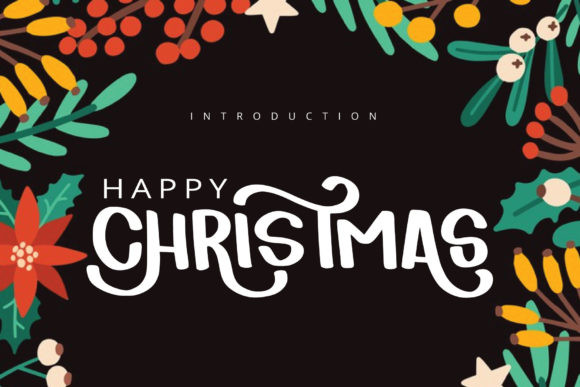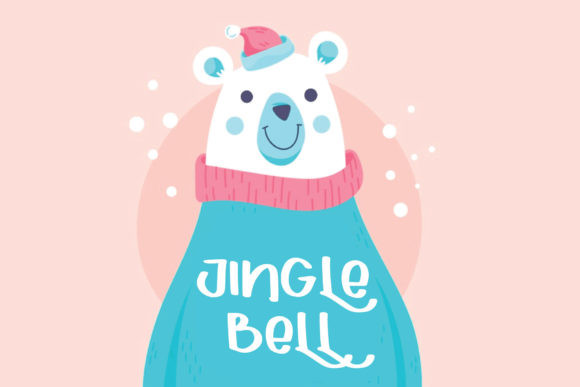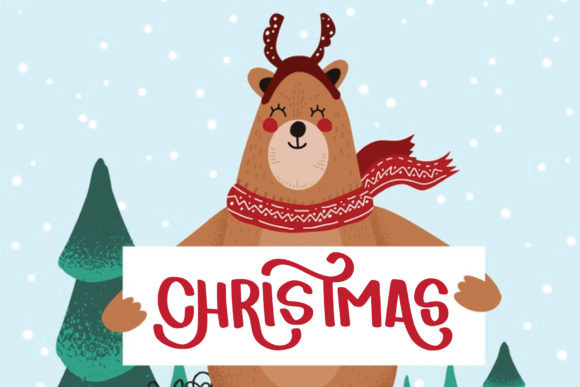
Merry Christmas Font
Merry Christmas is a fun, trendy and fresh display font. It has a beautiful and joyful style and is ideal for each of your Christmas cards or Santa letters.